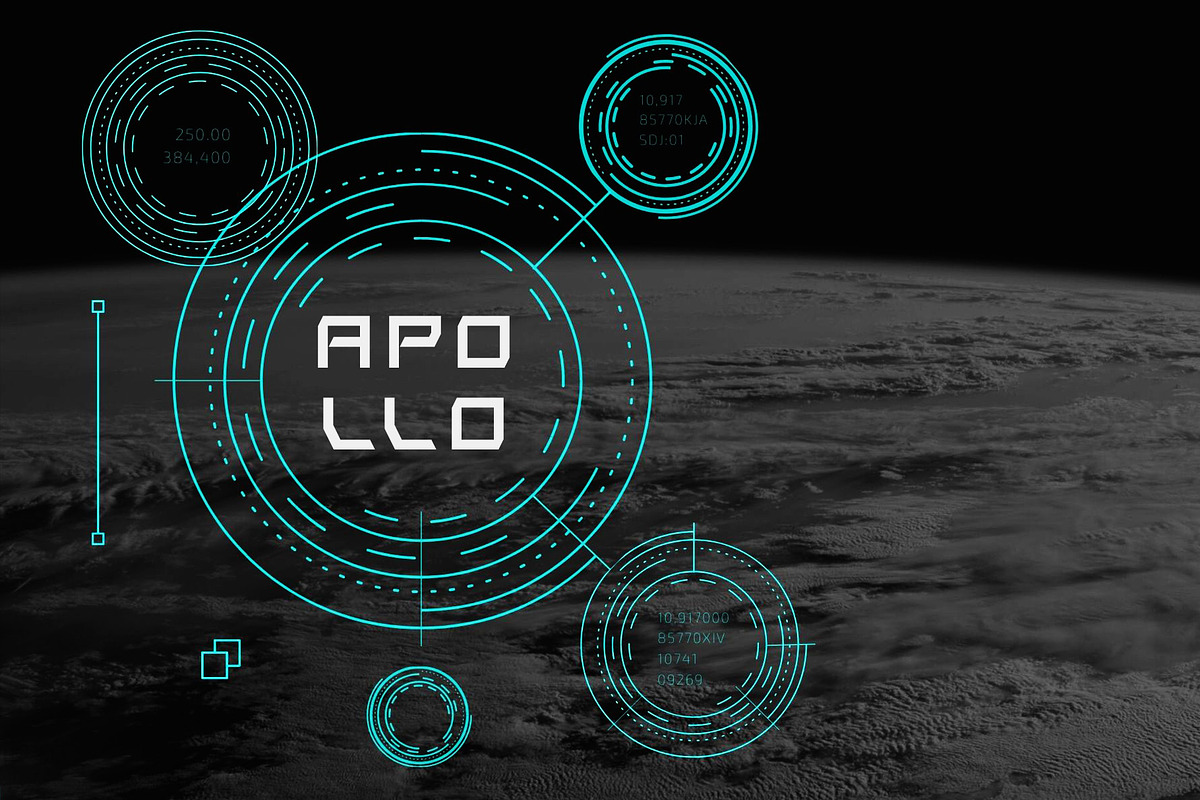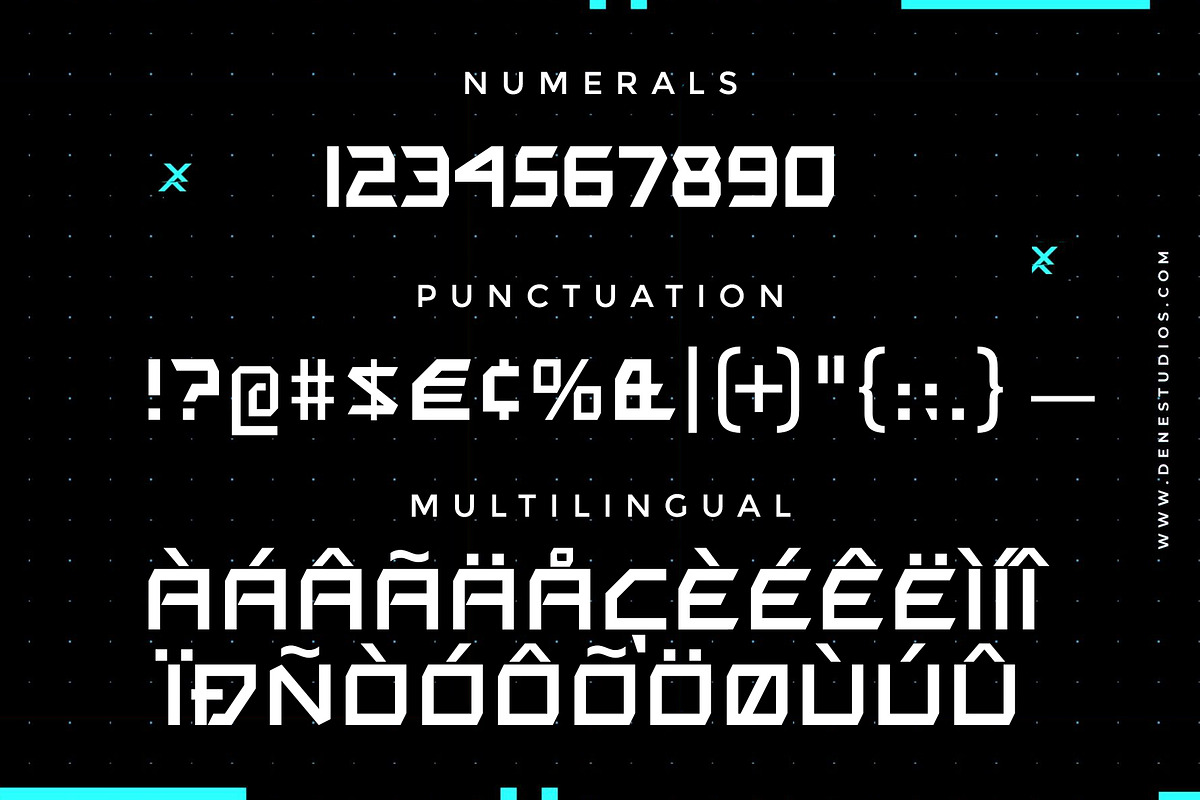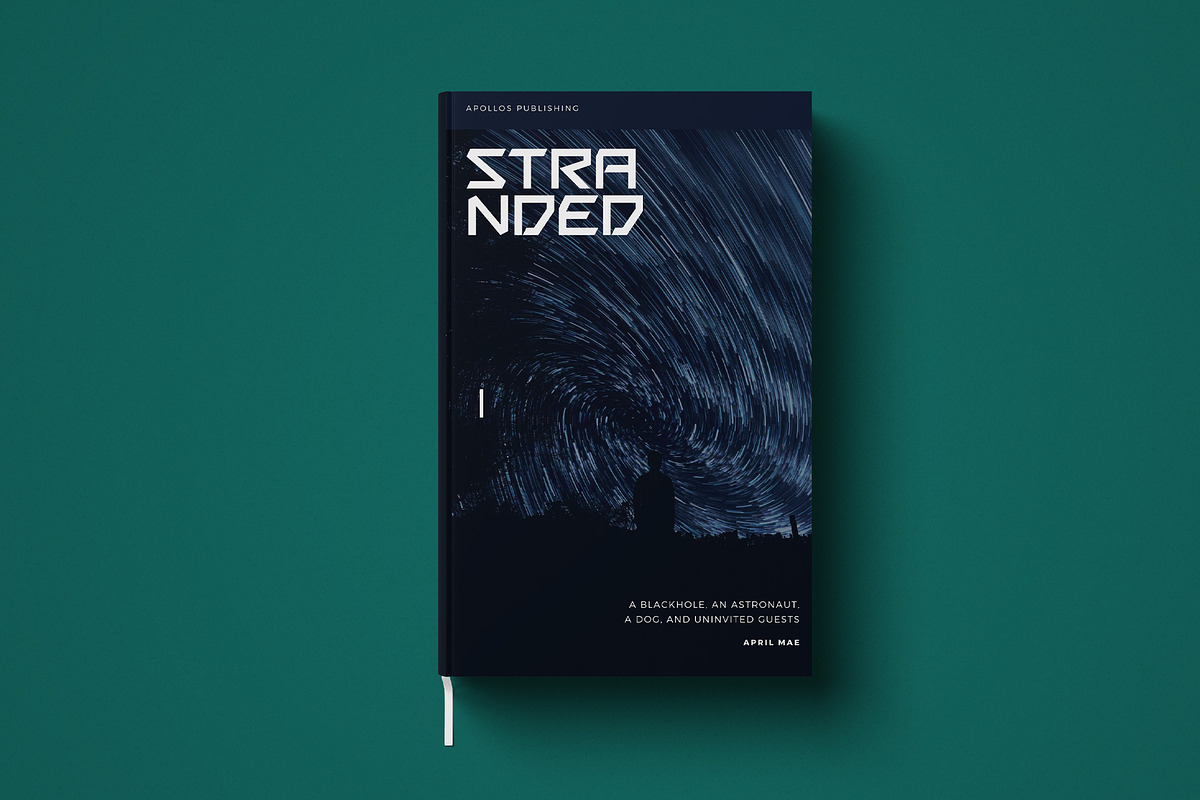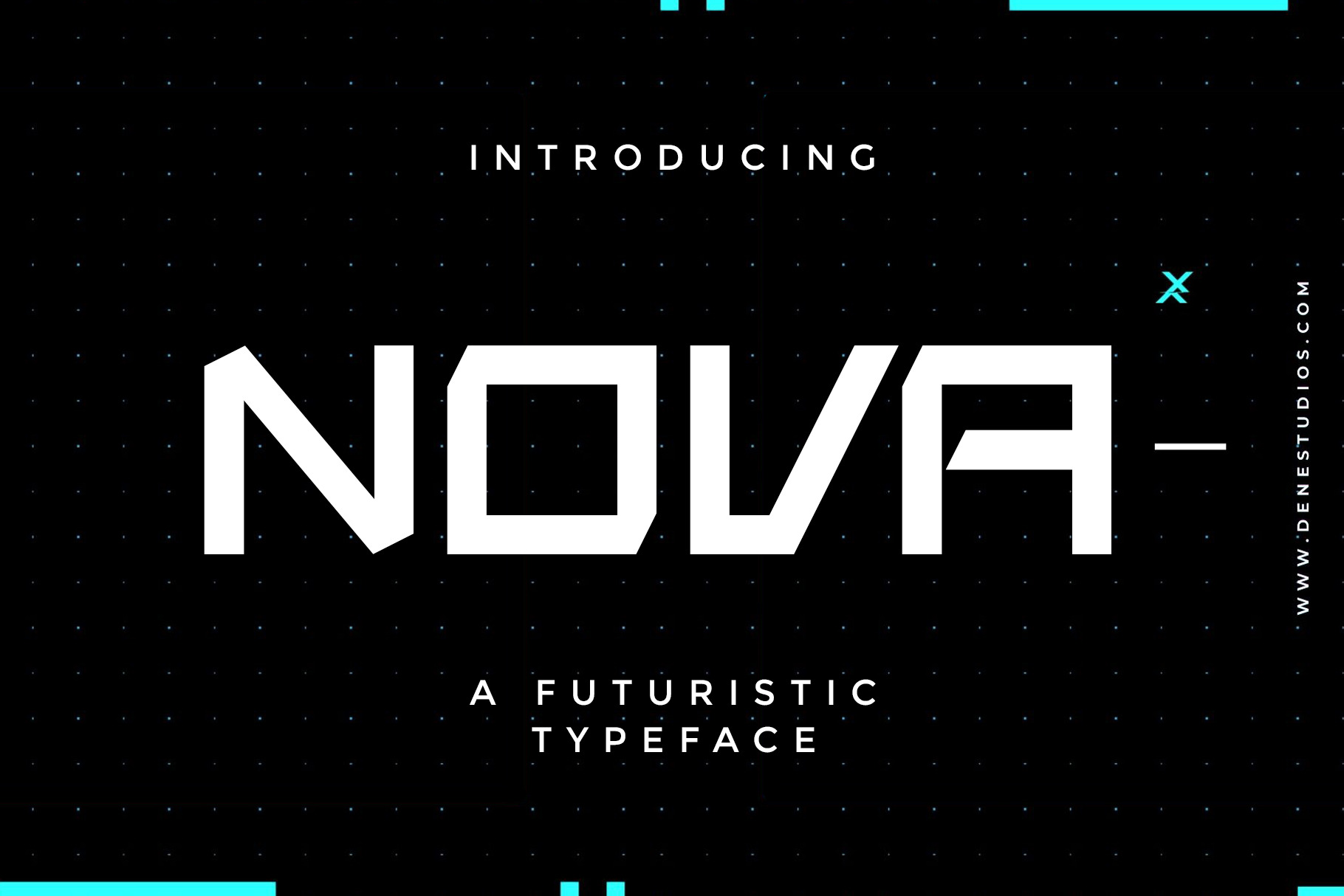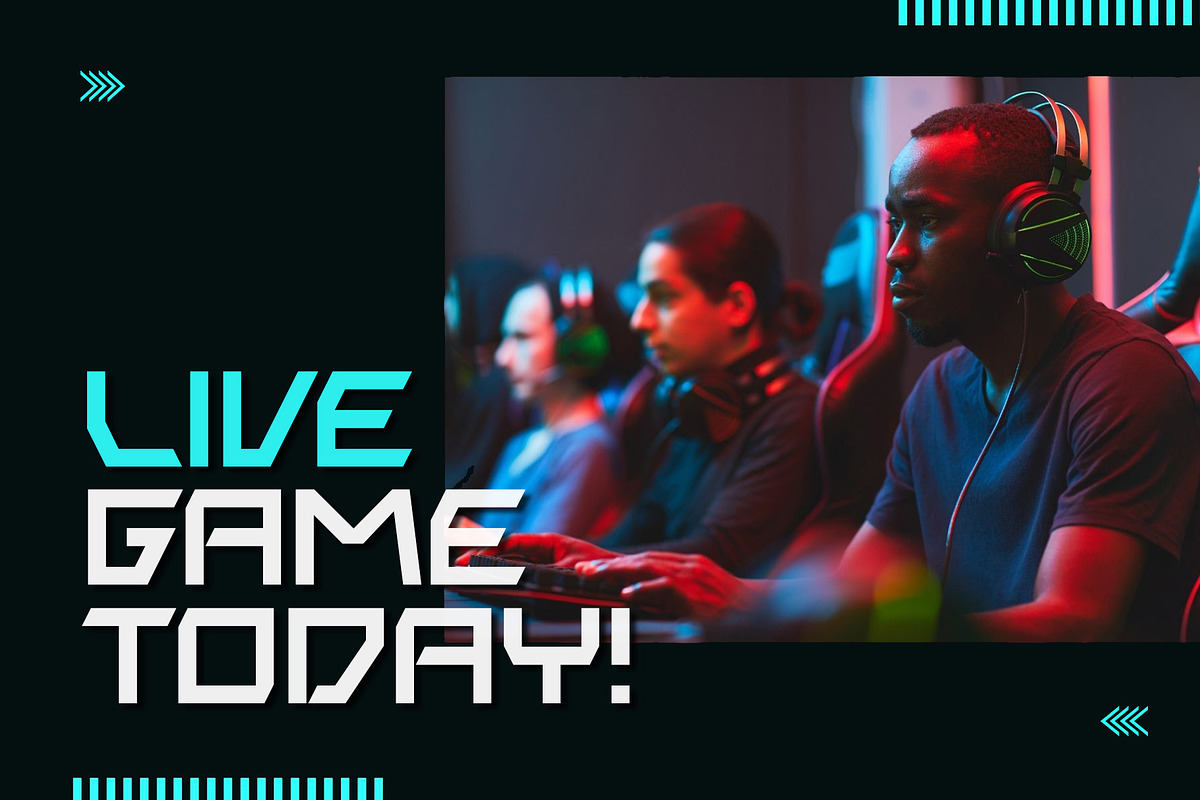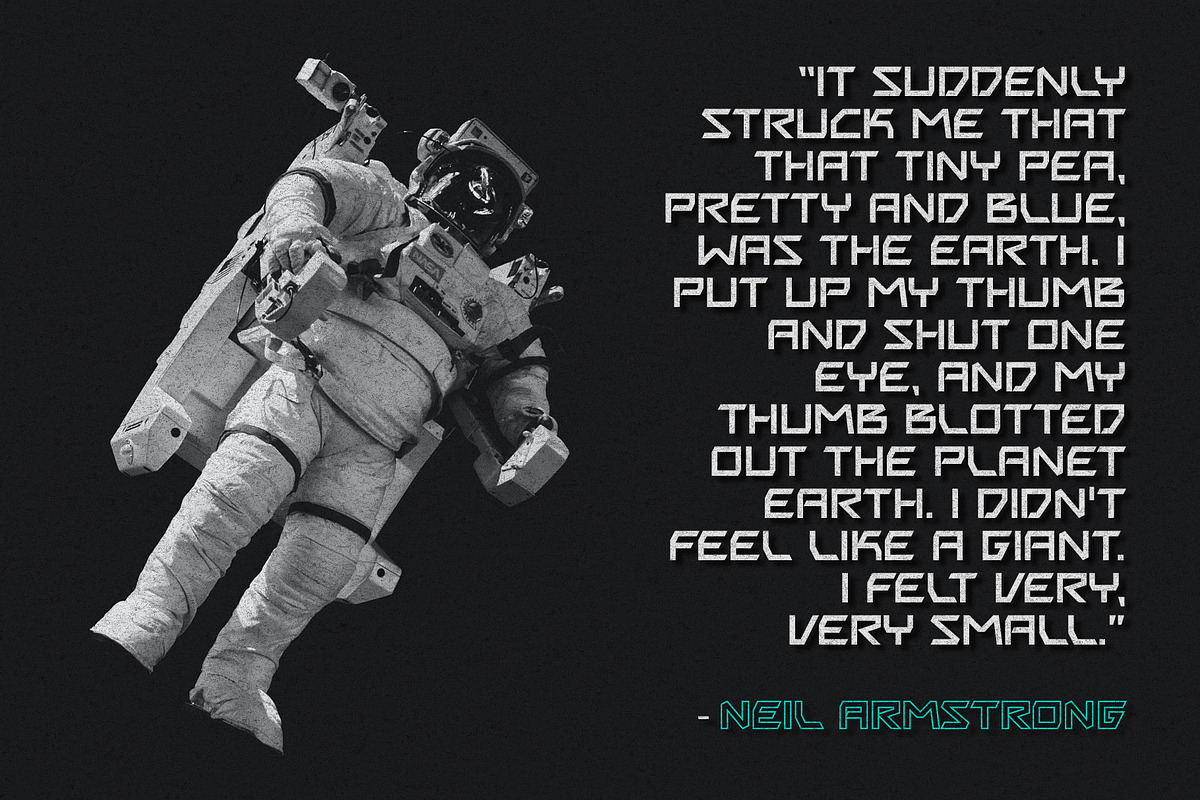
NOVA typeface
Nova is a futuristic font with a regular and outline type. The font features are sharp corners, all in uppercase, narrow spacing to accommodate for the wide letters and has a blocky feel to it, making it ideal for titles, subtitles and UI.